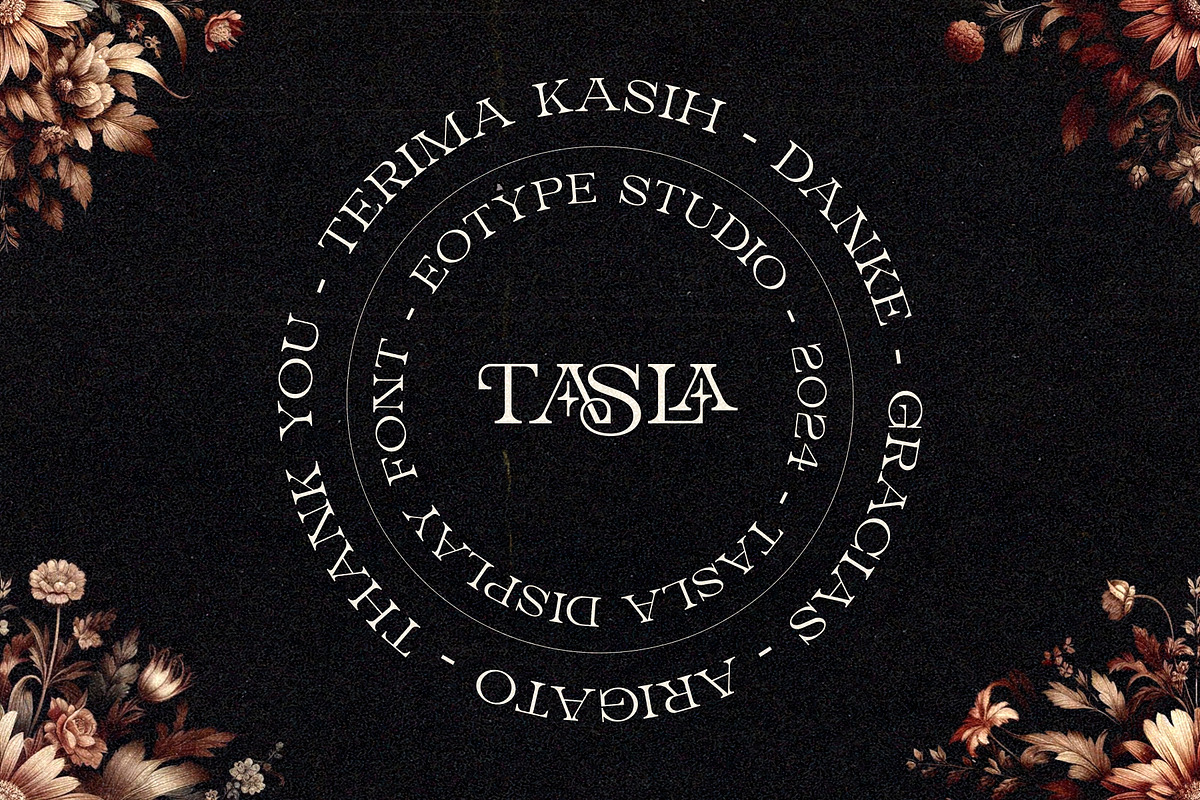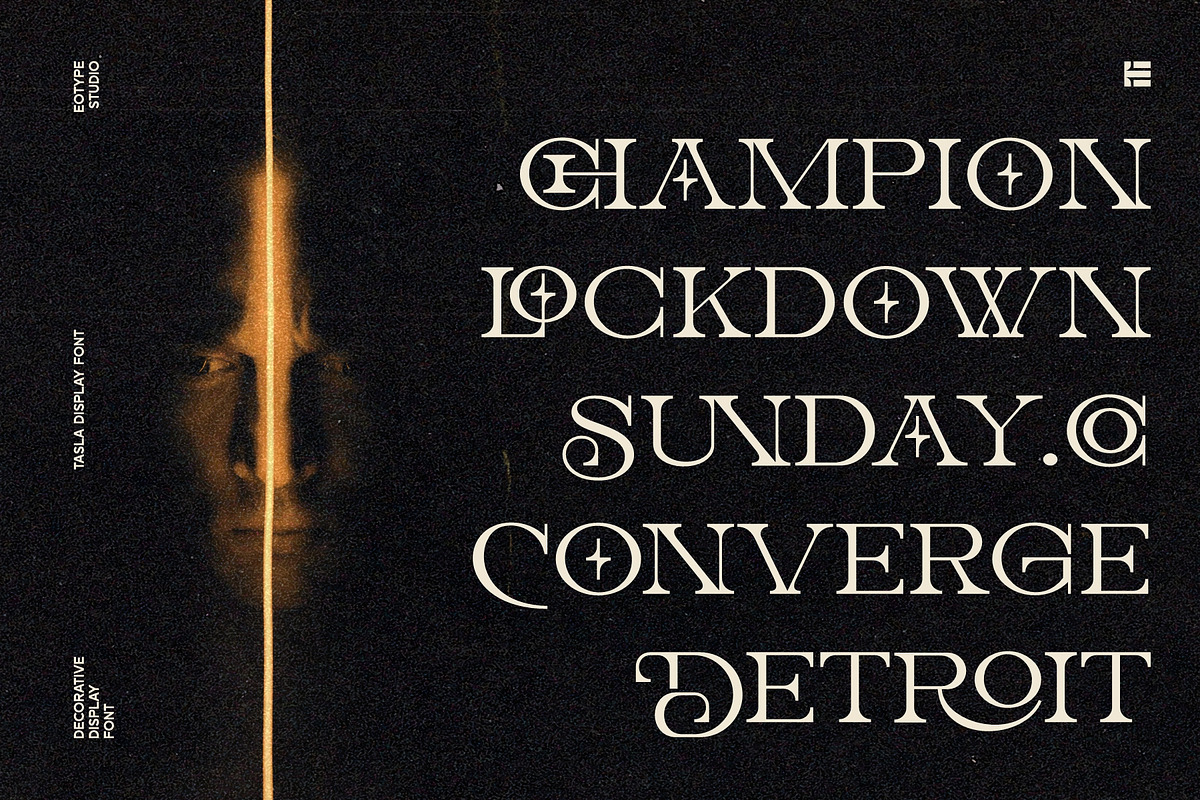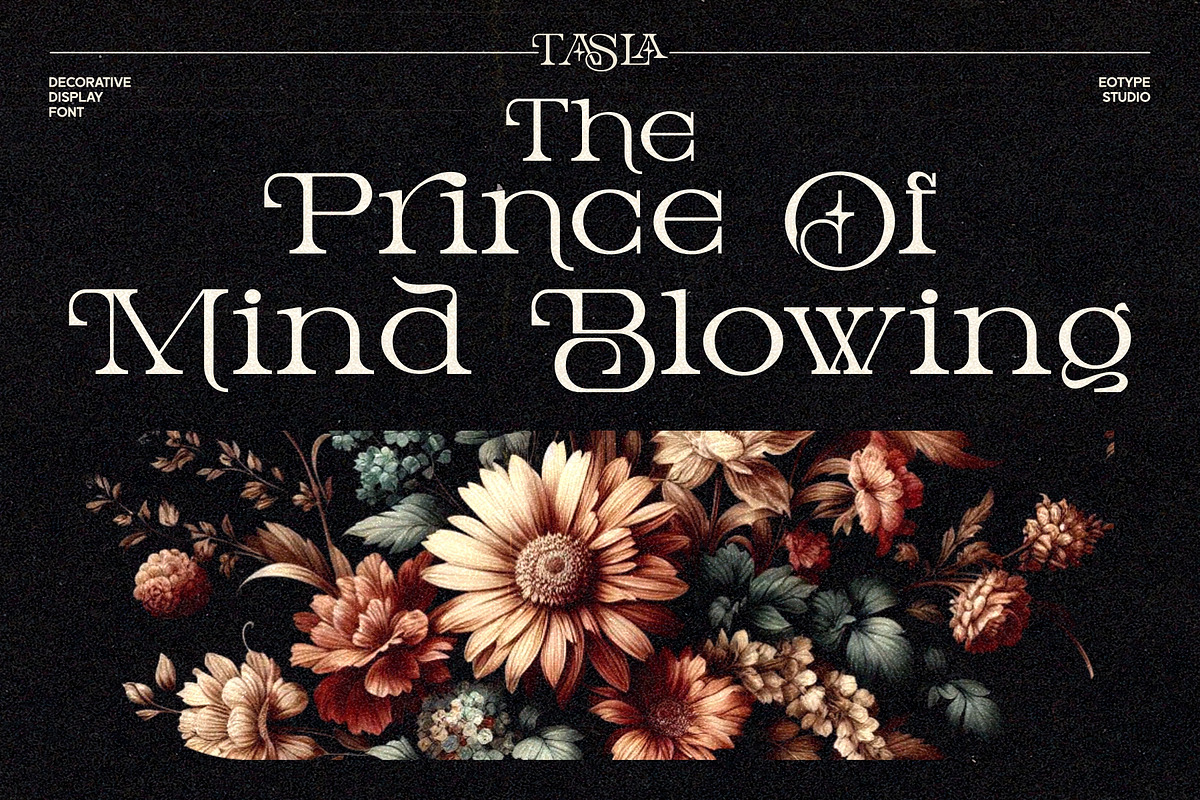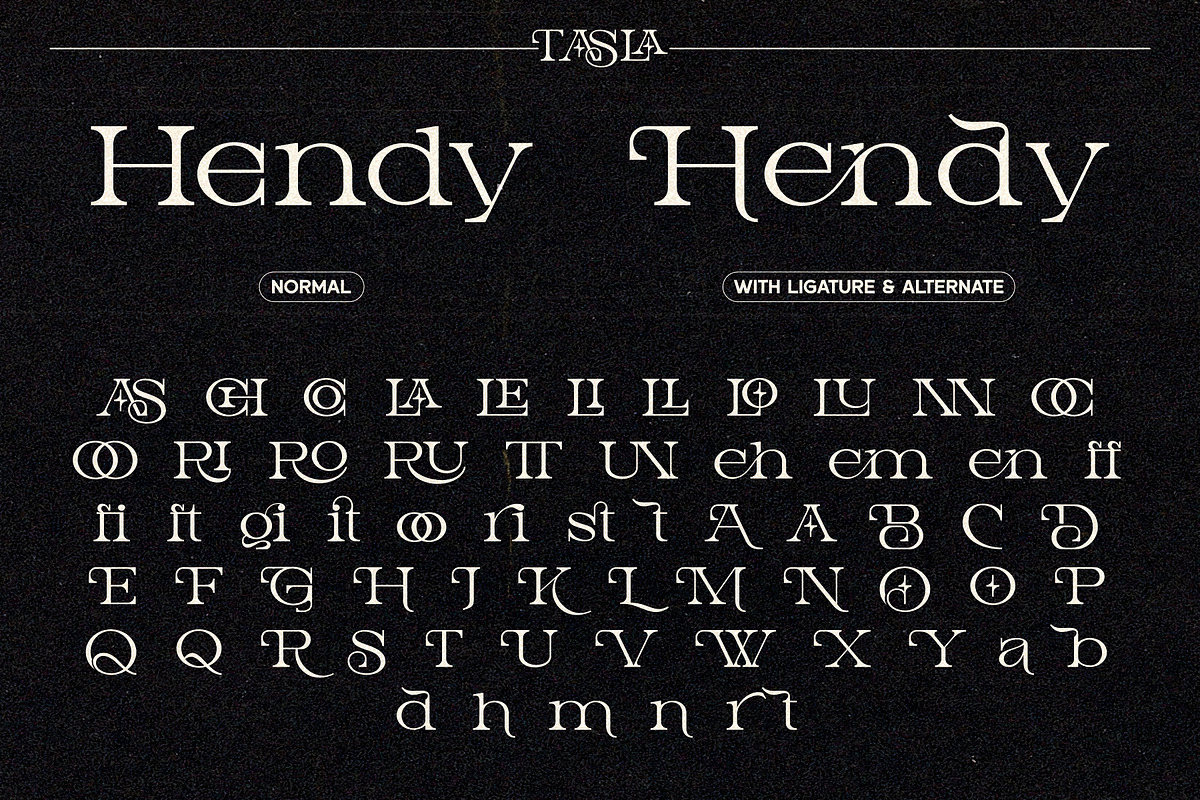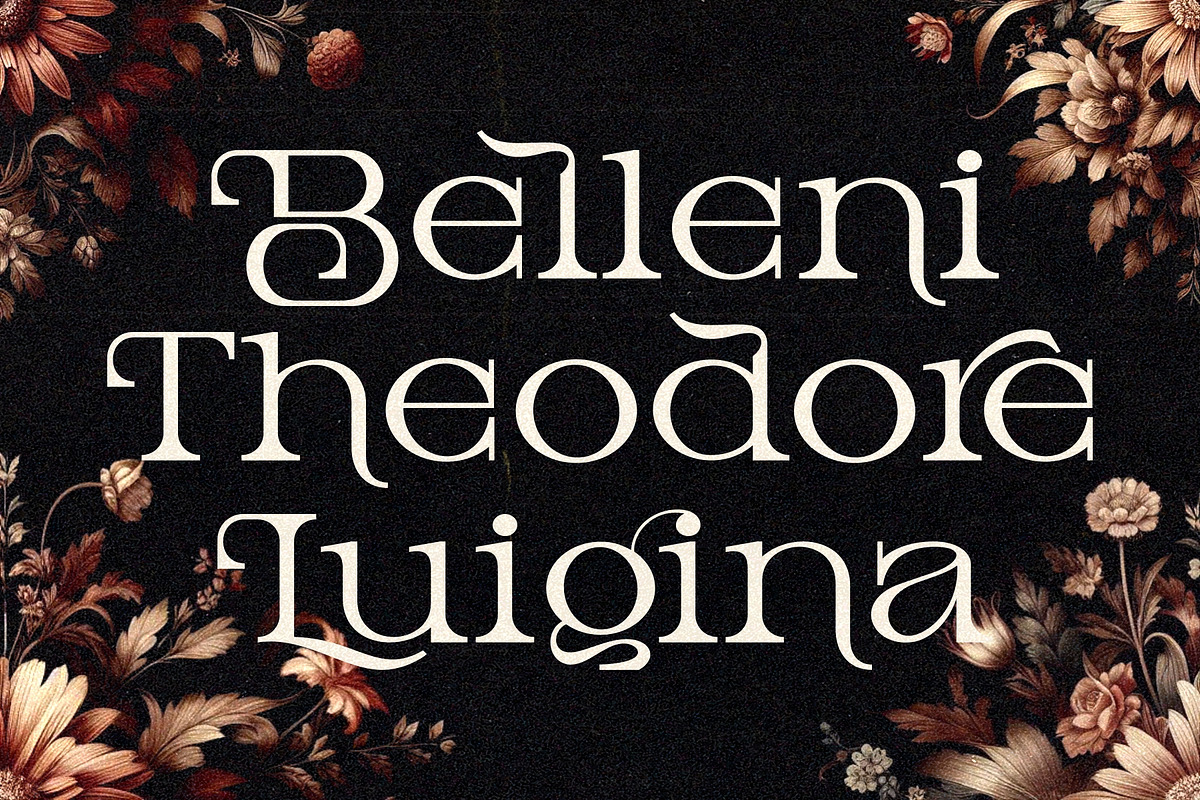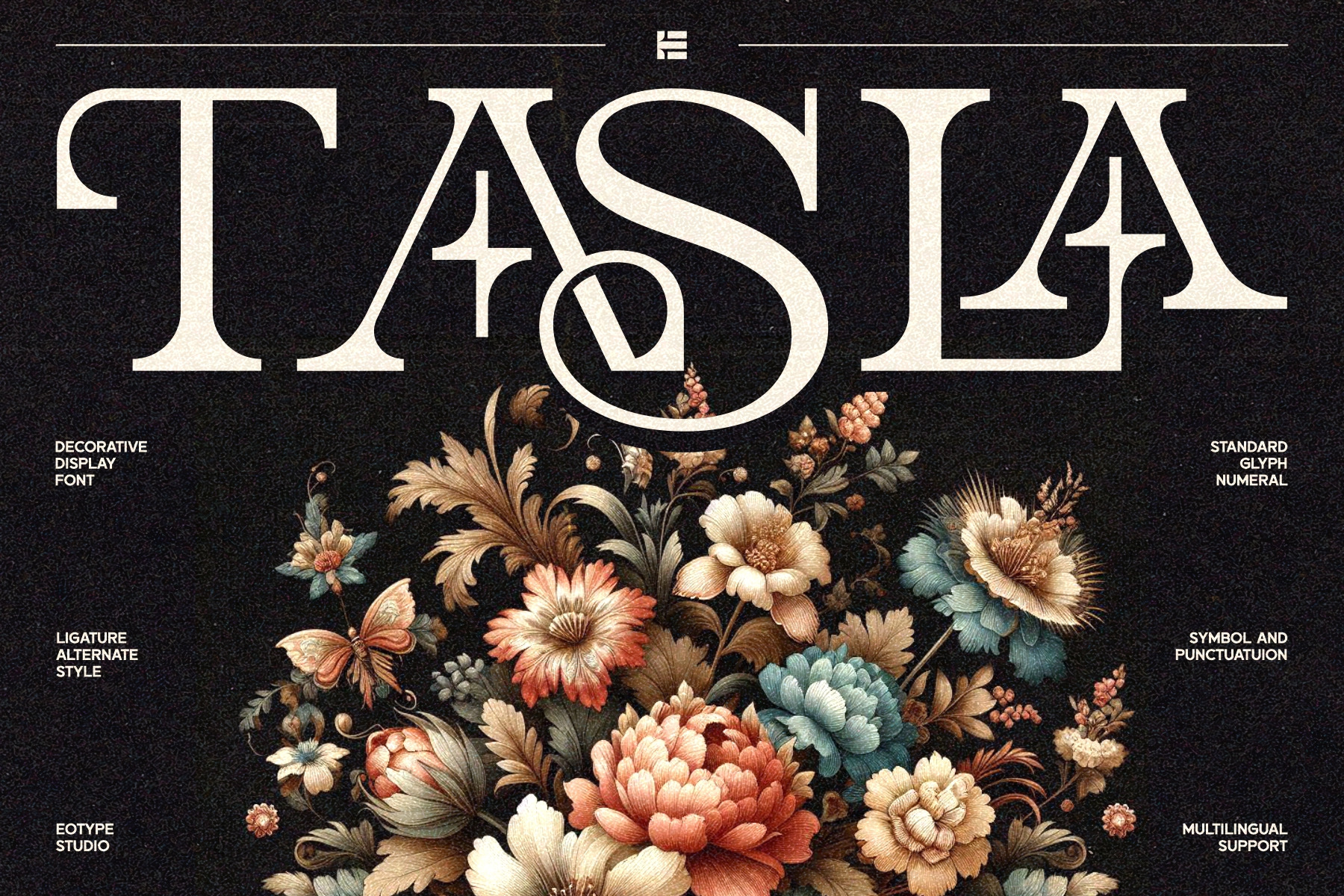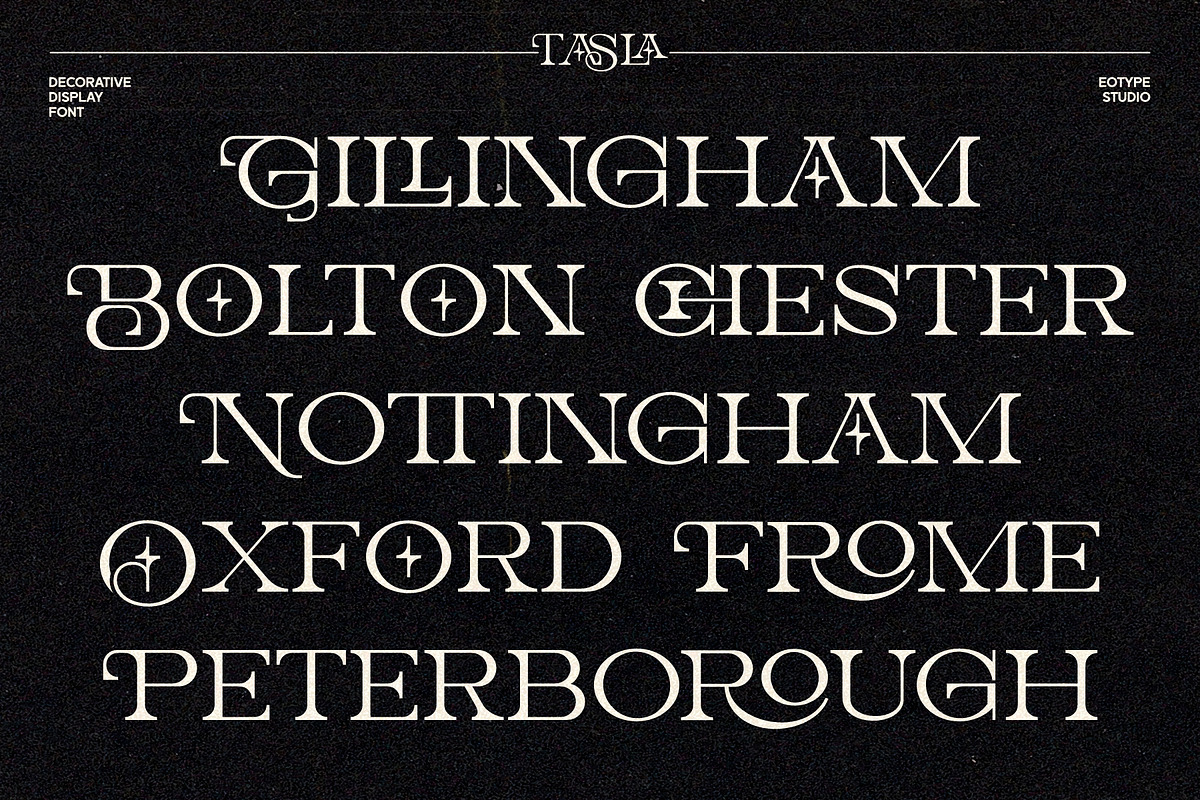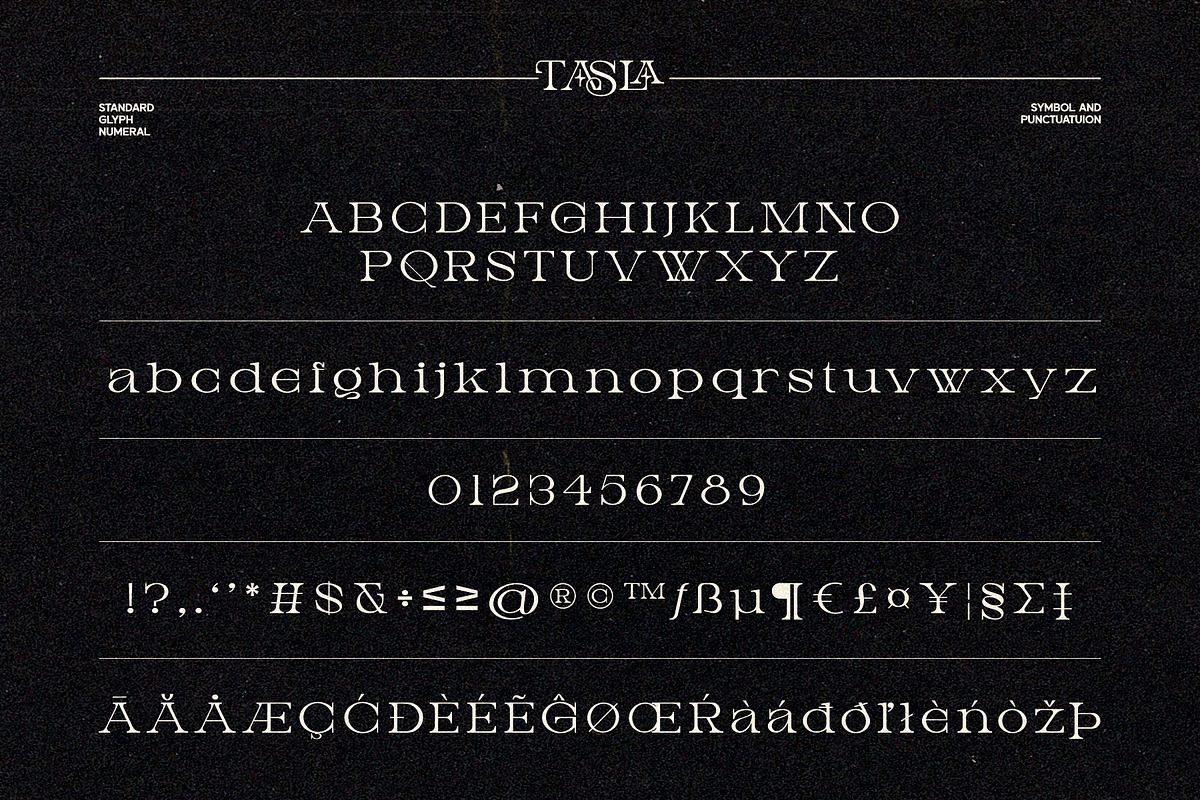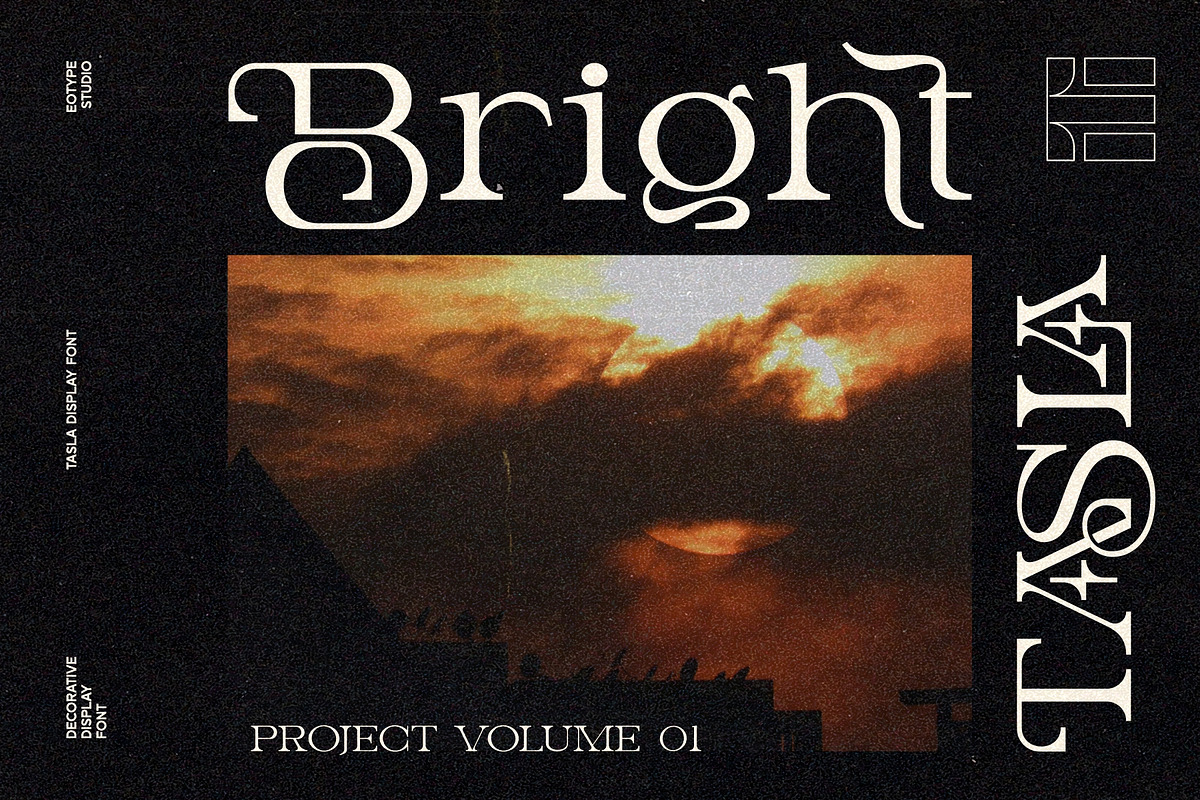
Tasla Decorative Font
Tasla A vintage decorative serif font typically exudes a classic and elegant feel, often inspired by designs from the Victorian, Art Nouveau, or early 20th-century eras. These fonts are characterized by their ornate, stylized serifs and intricate detailing, lending a nostalgic charm. They may include embellishments like swashes, flourishes, and unique ligatures that give each letter an artistic, hand-crafted quality. The letterforms tend to be bold, with high contrast between thick and thin strokes, which enhances readability while adding visual drama. Vintage decorative serif fonts are commonly used in branding, packaging, poster design, and other projects where a retro aesthetic or a touch of sophistication is desired.